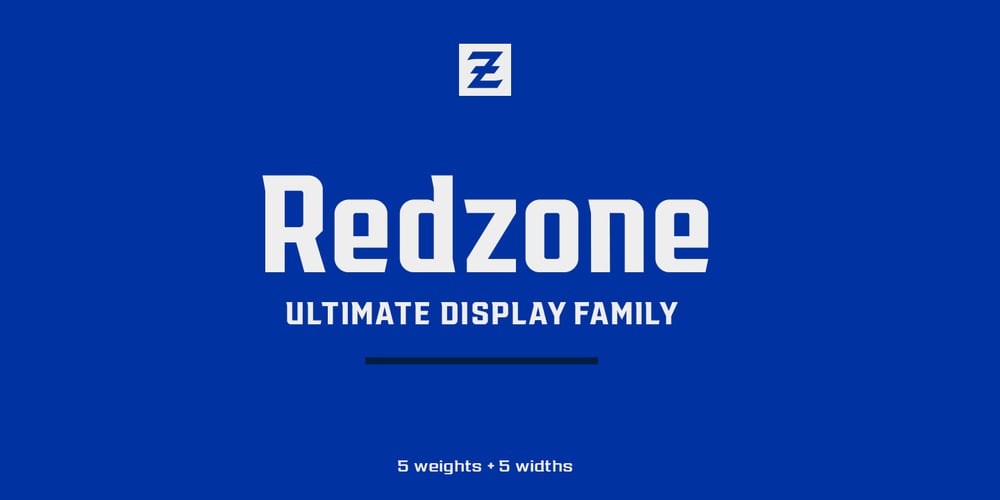
Redzone
Redzone font
Redzone Font Family was designed by CJ Zilligen and published by VarsityType. Redzone contains 22 styles and family package options. “Redzone” is a versatile display family developed as the workhorse typeface for the “Ultimate Football League”, a fictional football league passion project. With a strong focus on the sports branding industry, “Redzone” has a voice that is competitive and sophisticated, its letterforms featuring angled terminals and sharp serifs across 5 weights and widths. Its generous x-height and overall build makes it especially capable for headlines, thought it serves well for shortened body type as well. The “Redzone” name was debuted in October of 2017 as a titlecase font (later refined and renamed “Redzone Classic”), redesigned in November of 2018 with sheared and stenciled styles, and is now presented in the most streamlined version yet with the same charming fearlessness still present. Enjoy!